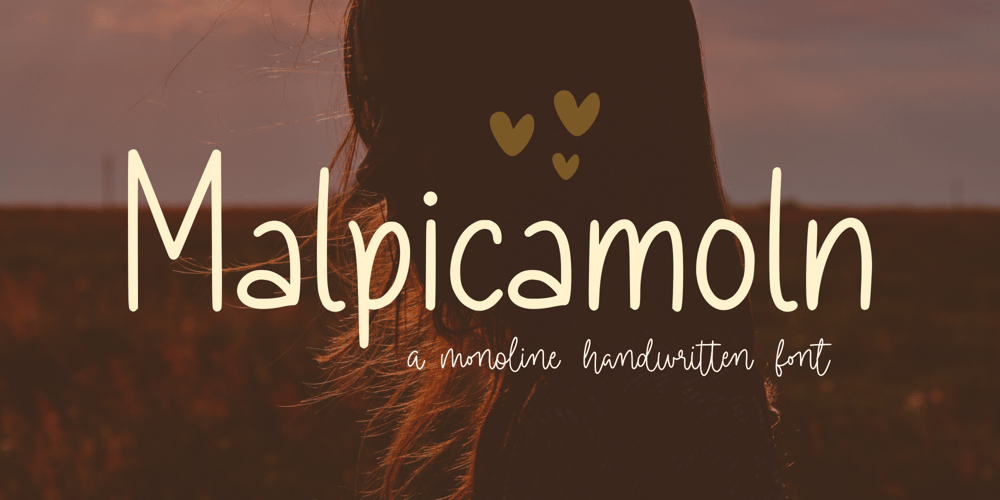
Malpicamoln
Malpicamoln font
Malpicamoln Font Family was designed by Fachrizal Yusuf and published by Allouse Studio. Malpicamoln contains 1 styles and family package options. Proudly Presenting, Malpicamoln A Monoline Handwritten FontMalpicamoln is perfect for product packaging, branding project, megazine, social media, wedding, or just used to express words above the background.Malpicamoln also multilingual support.Enjoy the font, feel free to comment or feedback, send me PM or email.